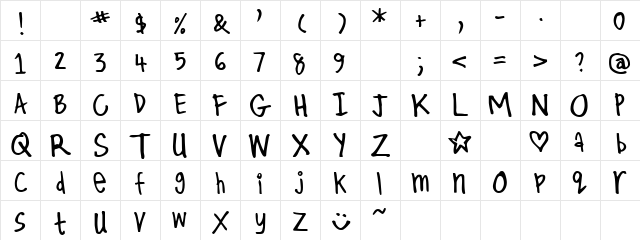
Kirby Regular
Design Context for Kirby
Kirby is a composed and adaptable typeface that performs quietly and consistently across a wide range of design contexts.